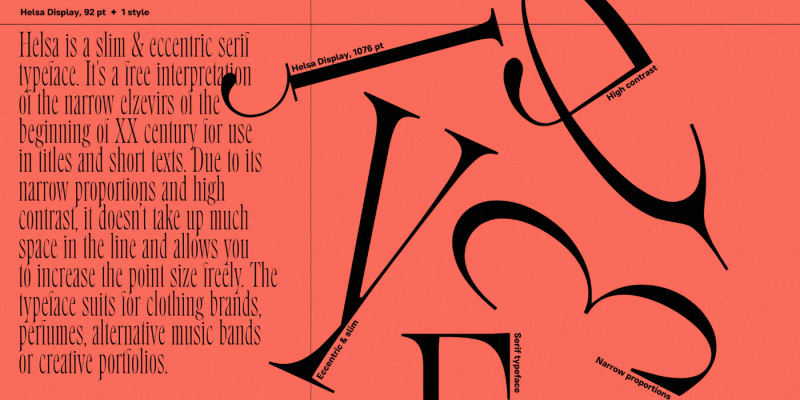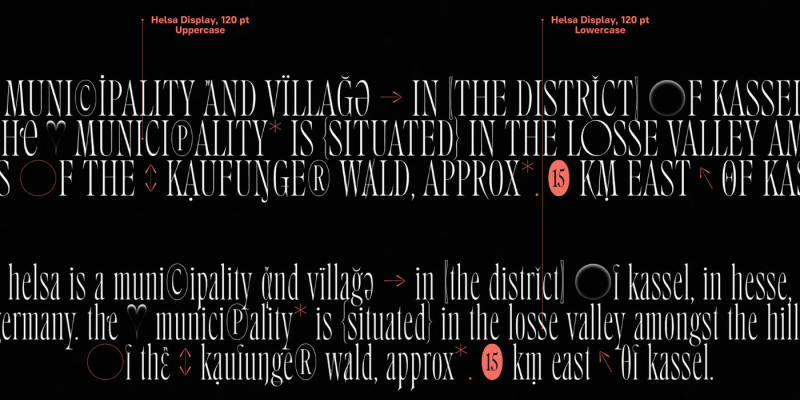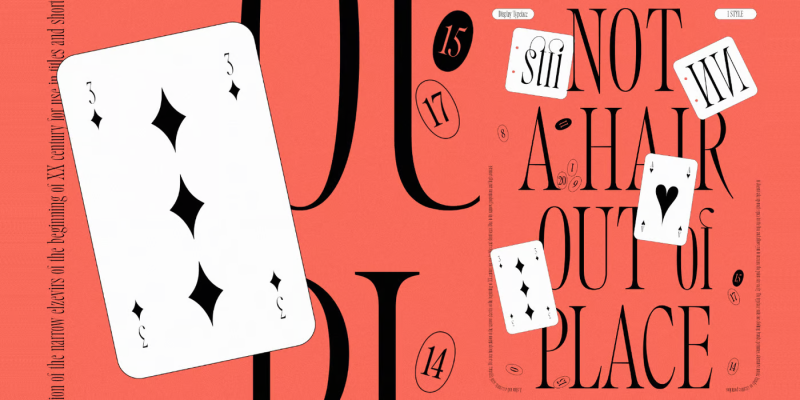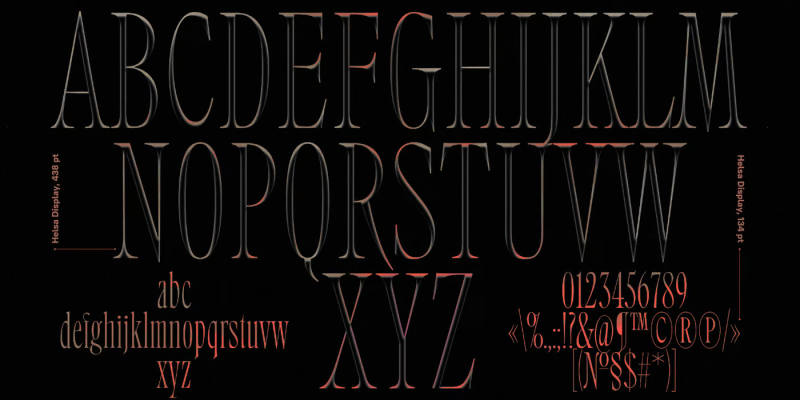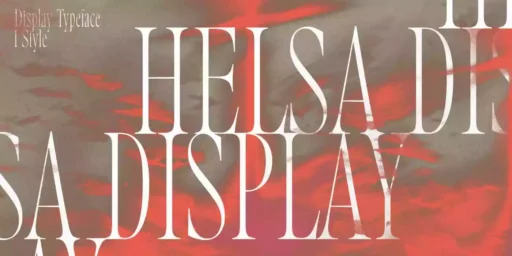
Helsa Display Font
Helsa display is a sleek and intentional serif font by ParaType best used for titles and short text. It is a collection of typefaces with a sleek design, inspired by the narrow Elseviers typefaces of the early twentieth century and taking its cues from Dutch type specimens, as well as hints of American type specimen catalogs and the designs of Wolf and Herbeck foundries.
Due to the small character size and high stroke contrast, Helsa is extremely versatile and can display large font sizes that will draw the viewer in.
This particular font is perfect for branding museums, concerts, shows, individual clothing or perfume brands, and of course, any project connected with design and history.
Helsa also comes with a very generous set of glyphs which is over 1,600 glyphs and subtitle hundreds of languages, such as Cyrillic, Greek, and Vietnamese. It also features a plethora of OpenType features including fractions, ligatures, old style and tabular numerals, titling alternatives and more. There are special symbols of dashes and punctuation marks for the upper and lower case fonts.
There are arrows, circled and oval numbered shapes, and signs for the different types of plastics, cards suits and a lot more in Helsa besides the letters.
Helsa Display Font gives long-form text a classic, trustworthy rhythm — ideal for magazine spreads, annual reports and book interiors.
Pair Helsa Display Font with generous letter-spacing for wordmarks in fashion, hospitality, wine and jewellery branding.
Use Helsa Display Font for slide titles in Keynote, PowerPoint or Google Slides to add authority without looking dated.